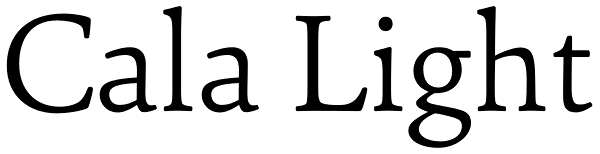
Cala
Cala is a reflection of Venetian Renaissance types but with a contemporary look. It has an energetic profile, achieved through soft outlines and a flowing rhythm. It is lively, remains stable in small sizes and is beautiful in display sizes. Cala...